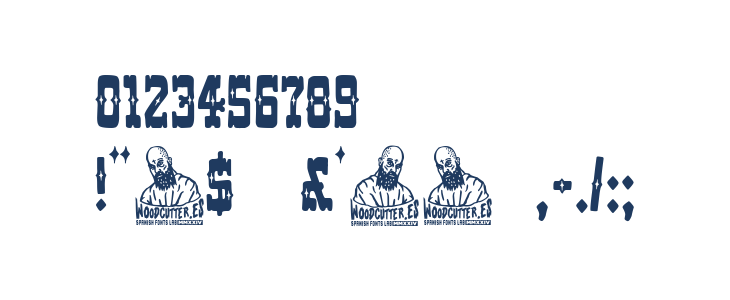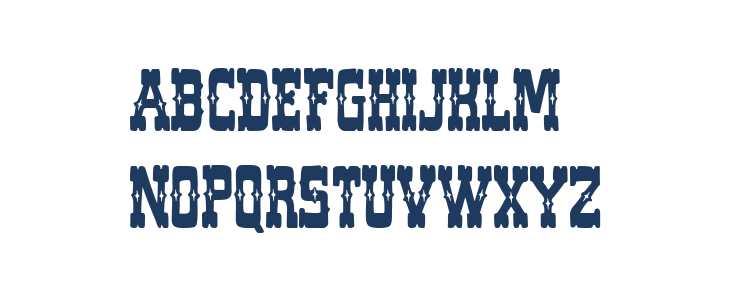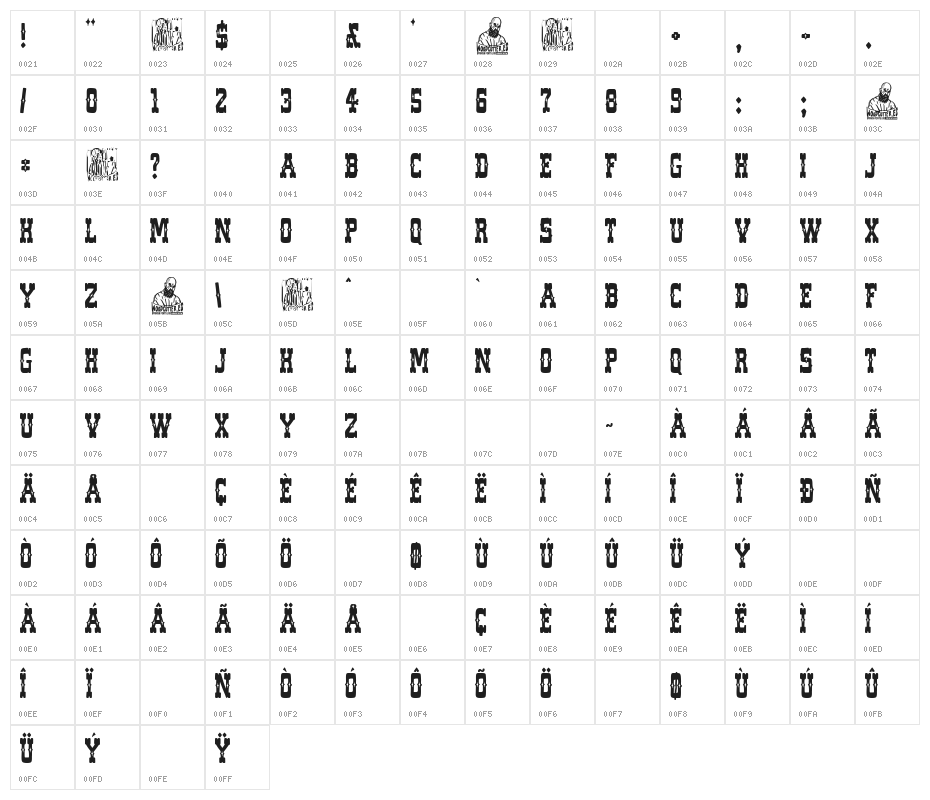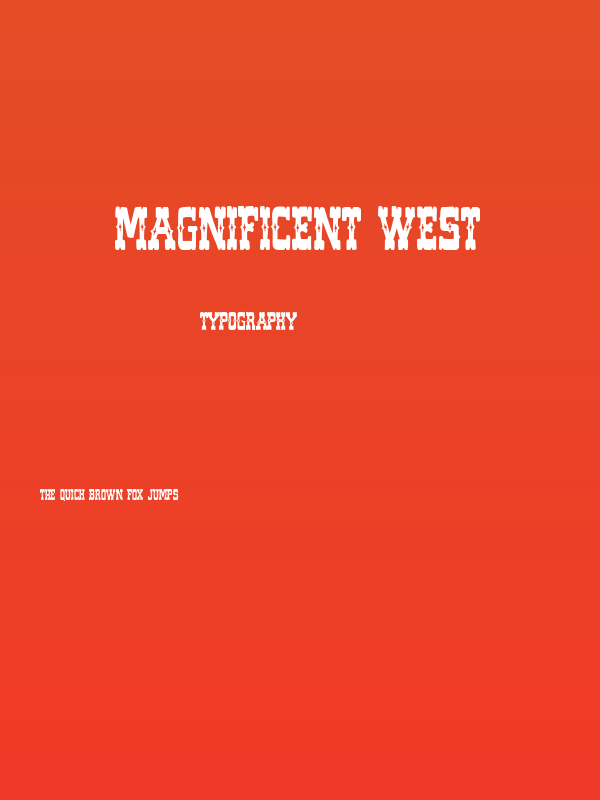
Magnificent West Font
Magnificent West Description
A bold, decorative display typeface with a rugged, Western-inspired style featuring slab serifs and irregular, distressed edges that evoke a vintage, wild west aesthetic. The characters are uppercase only, with consistent height and strong geometric forms, and the font includes numbers and select punctuation.
| Overall Style | Vintage, Decorative, Western |
| Proposed Projects | Posters, event flyers, signage, branding for Western or vintage-themed projects, movie titles, themed restaurant menus. |